Making funny memes is not just about pictures; it’s also about picking the right words in a unique way. Fonts are like magic tools for memes, making them extra funny. If you’re looking for the best meme font for your memes, you’re in the right place.
Choosing fonts for memes is like picking colors for a painting. After researching 100 fonts, we have concluded that the “Impact” font is severe and solid, and “Comic Sans” is silly and fun. “Helvetica” and “Arial” are modern and straightforward, while “Wingdings” adds old-school symbols. Each font adds a different flavor to your funny pictures.
In this article, we have come up with the best meme fonts that you need to create the funniest memes. So, let’s dive into the font world to find the best ones for the funniest memes ever!
What Font Is the Meme Font?
The meme font is often referred to as the “Impact” font. You commonly see it in memes with big, bold letters. The meme font is unique and has some incredible things. The words are big and strong enough to catch your eye.
They’re usually at the top and bottom of pictures. The font is white with a black outline. And guess what? Memes have funny pictures with them – like funny faces, animals, or famous people. Some fonts are loved more, and here are the best ones!
Best Meme Fonts: You Need To Create the Funniest Memes
Meme fonts are excellent letters used for funny pictures online. They make memes funny and famous. Fonts like Berkshire Swash, Arial, and Comic Sans are popular. When you put the correct font with a funny picture, you can make a meme many people like and share! So, let’s look at the best meme font you can use.
1. Impact Font
The Impact font is a meme maker font & special kind of writing that’s big and strong. It catches your eye quickly because the letters are bold. This font is often used in memes to make words stand out and be really important.
When you see a meme with words in this font, you know it will be funny and attention-grabbing. You can easily download impact meme font & use it for making the funniest memes.
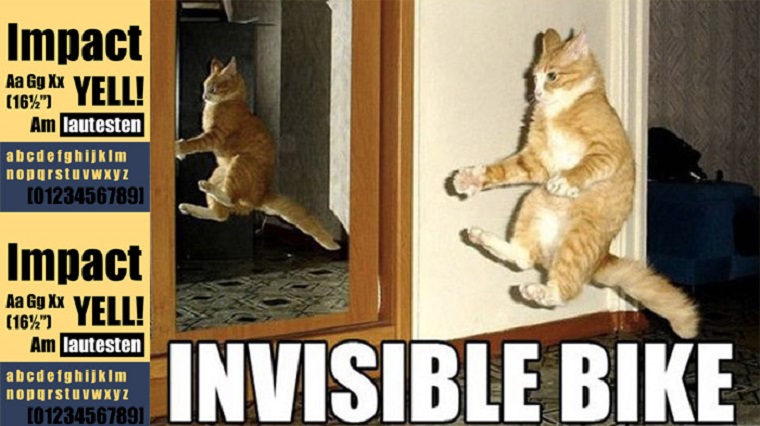
2. Comic Sans Font
As the name suggests, Comic Sans is a casual script font inspired by comic book lettering. Comic Sans is a font that’s happy and fun. It looks like writing in comic books and cartoons.
The letters jump around a bit, making them look silly and fantastic. People use it for school work, funny notes, and signs that want to be playful. When you see it, it makes you feel good and brings a big smile!
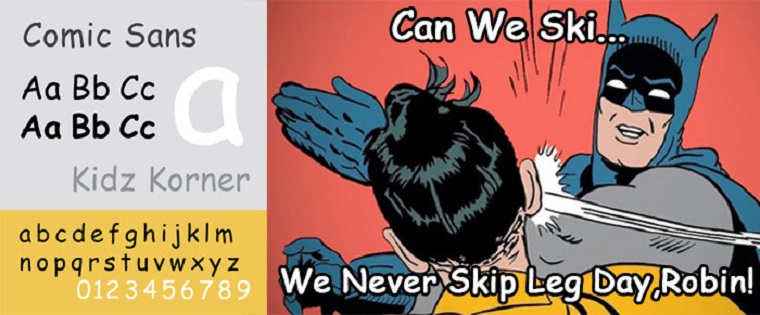
3. Arial Font
Arial is another classic meme font used by the new generation. With its Neo-grotesque and sans-serif design, Arial is believed to carry a more humanist character.
Arial is a font that’s really neat and easy to read. It’s like good handwriting on a computer. People use it for important papers, making memes, and stuff because it looks friendly and organized. It’s a font that’s all about being transparent and tidy.
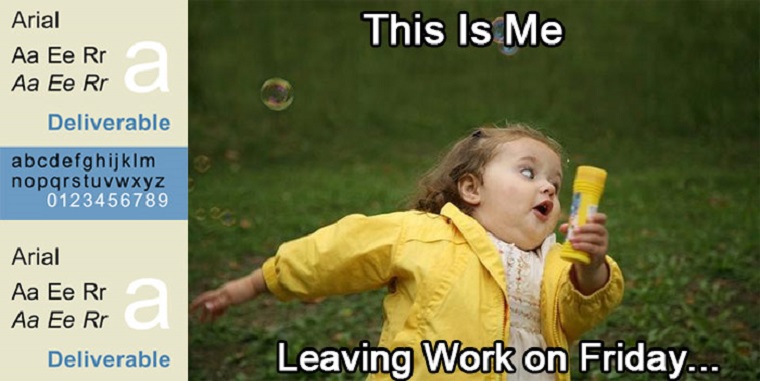
4. Myriad Pro
Myriad Pro is a friendly and modern font. Its letters are simple and clean, making them easy to read. This font is often used in many places like ads, logos, memes, and websites because it looks friendly and professional. It’s like a font that’s cool and gets along with everyone.
Myriad Pro produces an objective and neutral tone when used by meme makers to have their voices heard through meme images, gifs, or short videos.
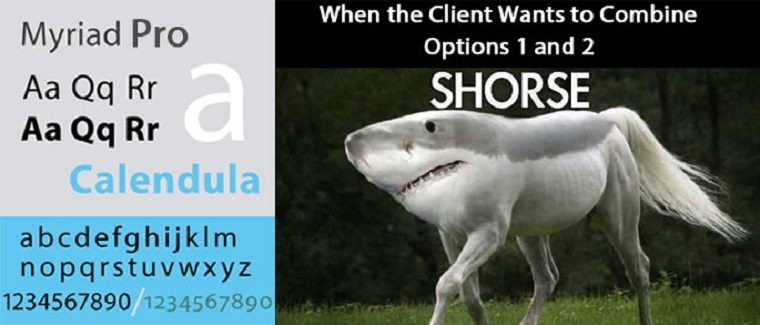
5. Calibri Font
Calibri is a font that’s easy to read. The letters are simple and gentle, like cozy writing. People use it for school work, essential papers, memes, and even on computers. It’s a font that’s nice and makes words look friendly.
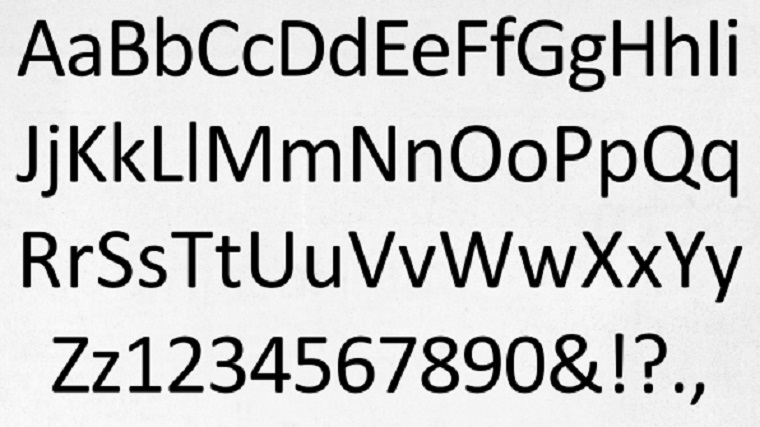
6. Montserrat Font
Montserrat is a sleek and modern font. Its letters are clean and stylish, which makes them look cool. This font is often used in designs, websites, memes, and posters because it’s eye-catching and professional. It’s like a font that’s ready to impress and stand out.
The high x-height, cute tail shown by the letters ‘Q’ and ‘Y,’ and rounder shape and more comprehensive spacing yield a feeling of trust and dynamics.
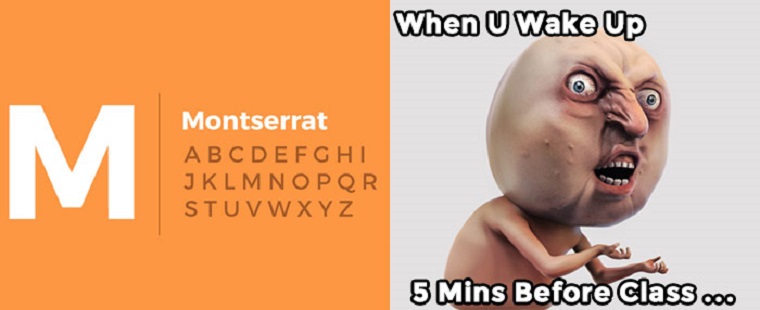
7. Helvetica Font
Helvetica is a font that’s clear and tidy. The letters look simple and friendly, making words easy to read. It’s used for signs, logos, memes, and computers because it looks clean. It’s a font that’s always ready to help things look organized and neat. The meme with Helvetica font gives a dense and solid vibe.
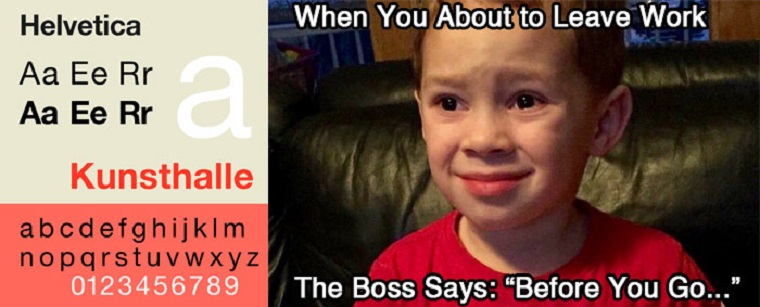
Meme Font Generator
The Meme Font Generator is a cool tool online. It helps people make words for funny pictures, like in memes. You can pick different fonts to make the words look unique and fun. This tool is like a magic spell that turns regular words into funny and exciting memes that make people laugh!